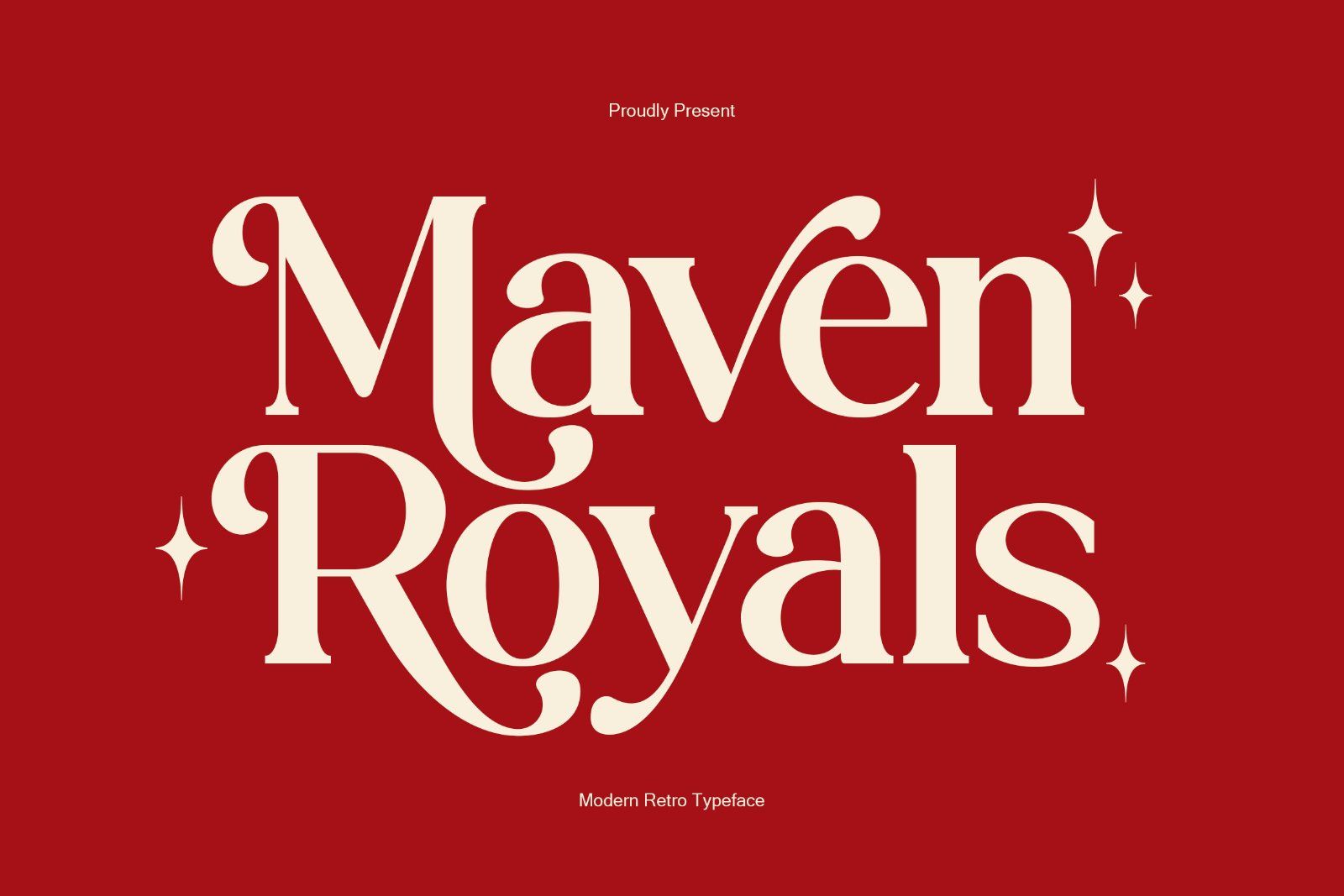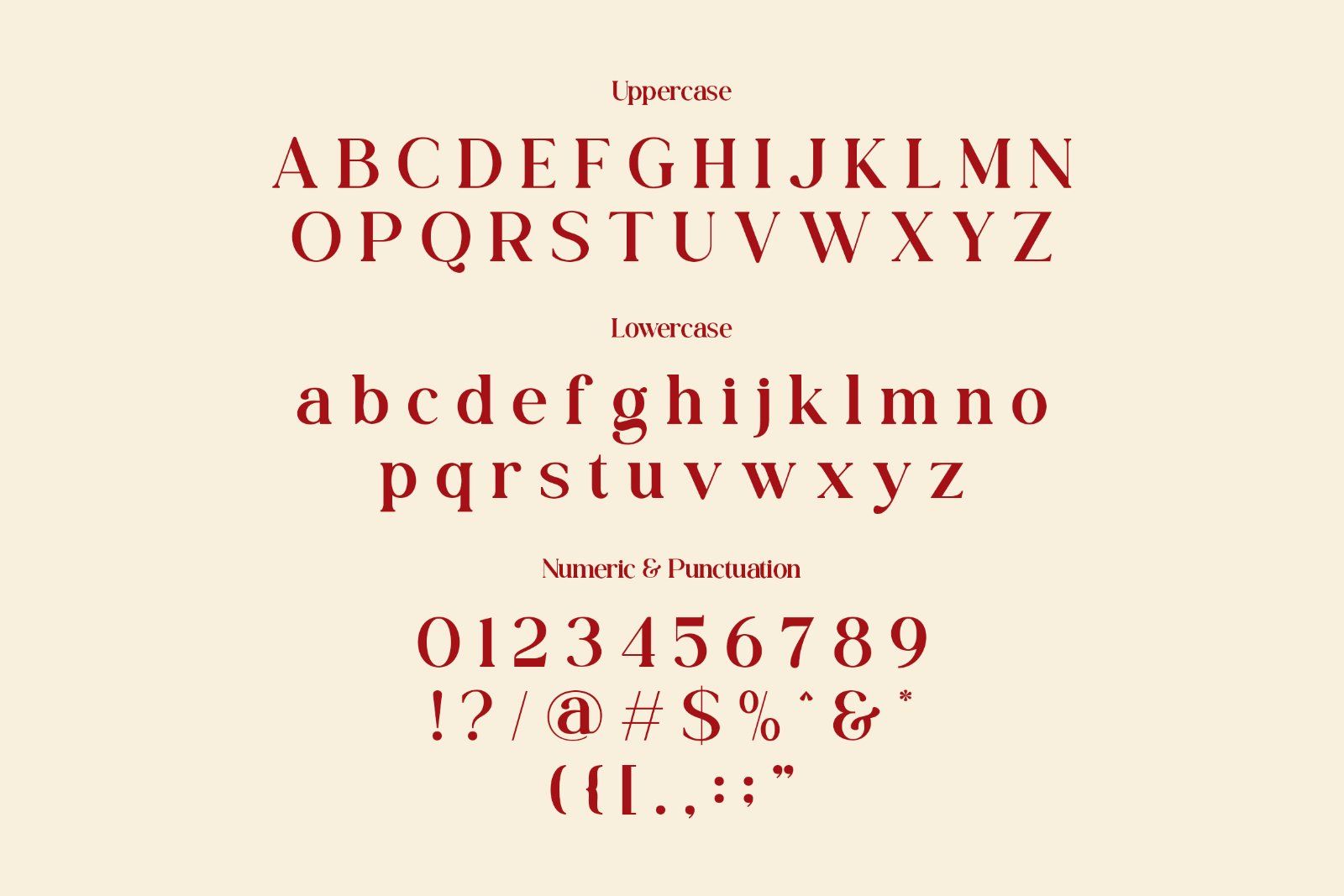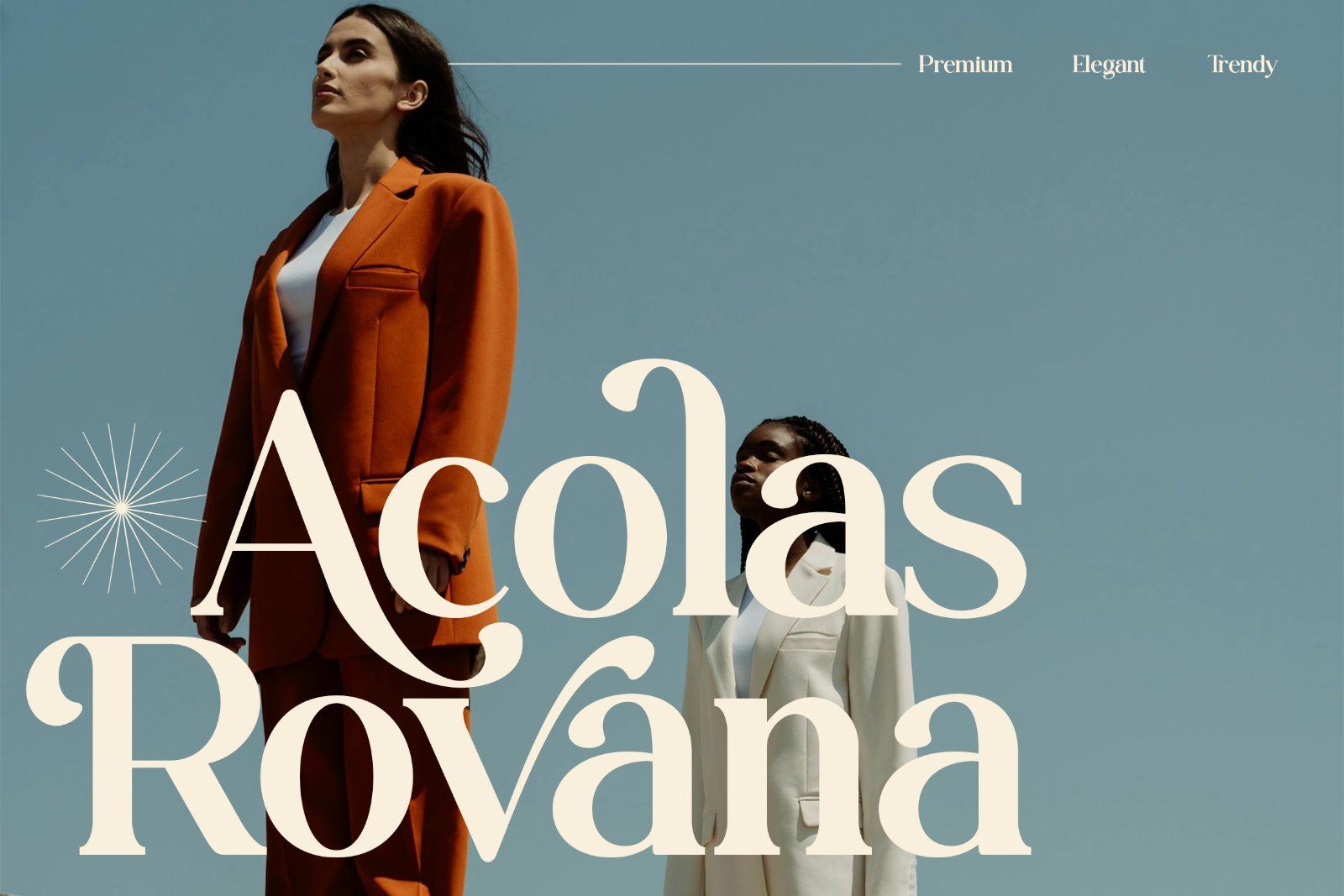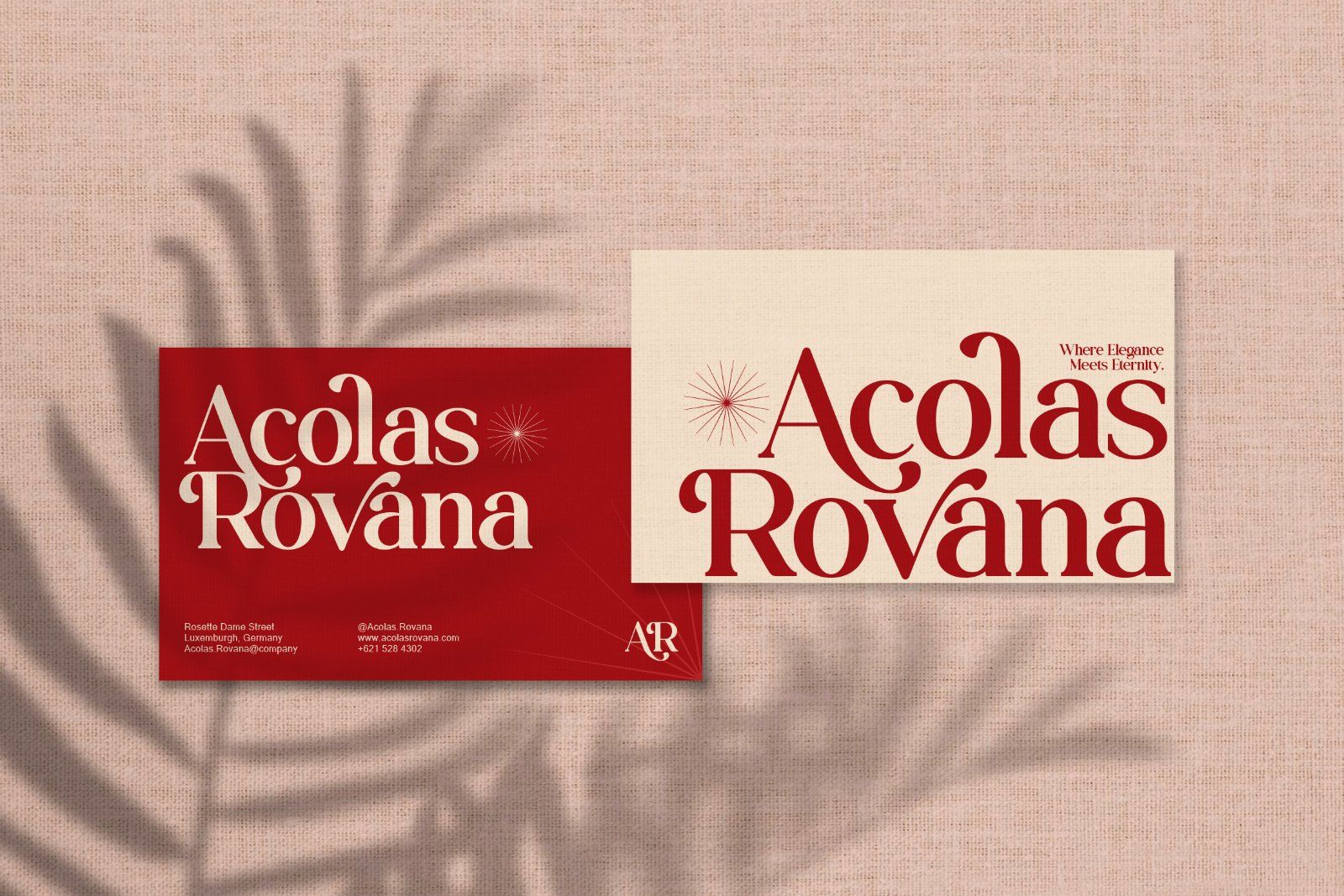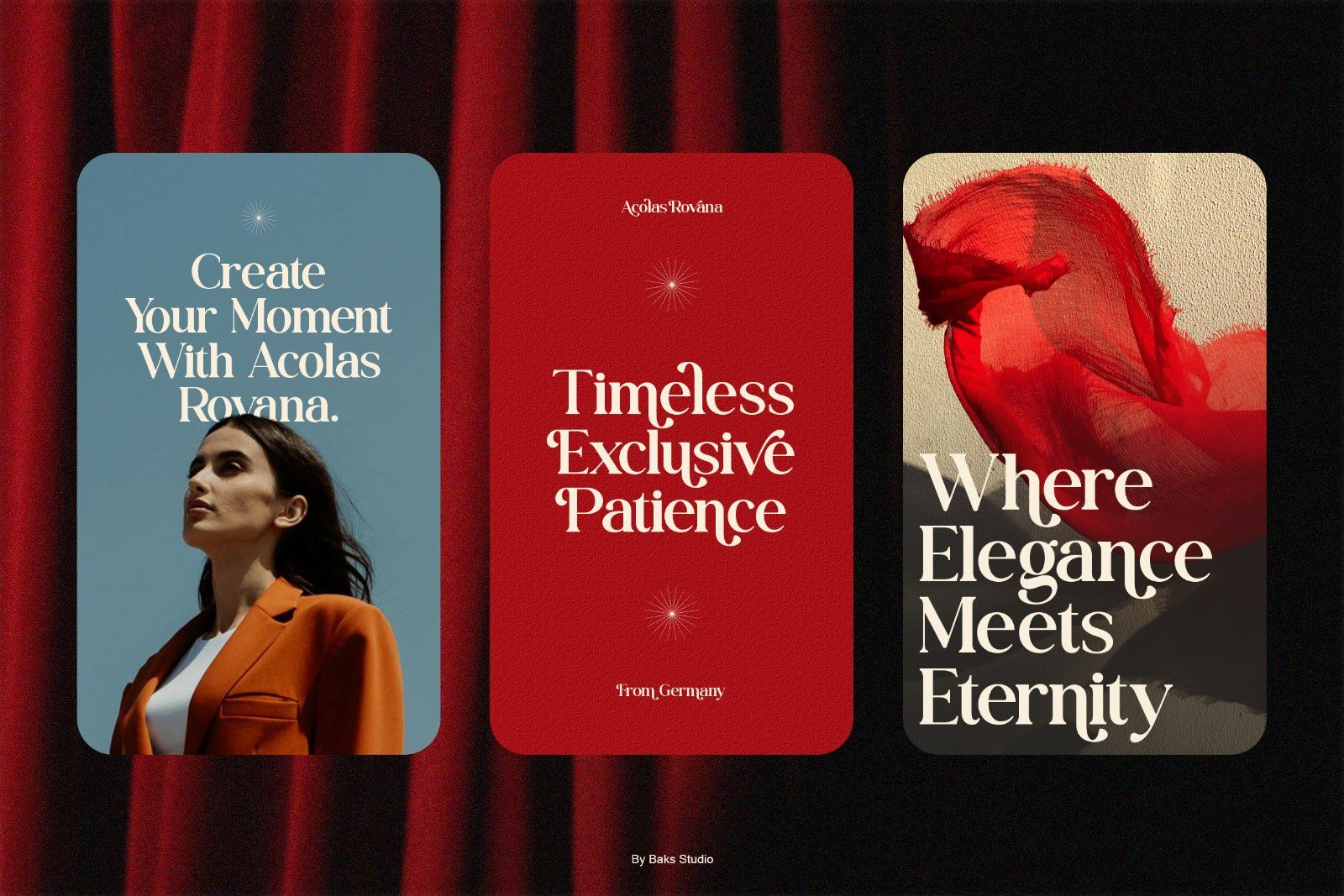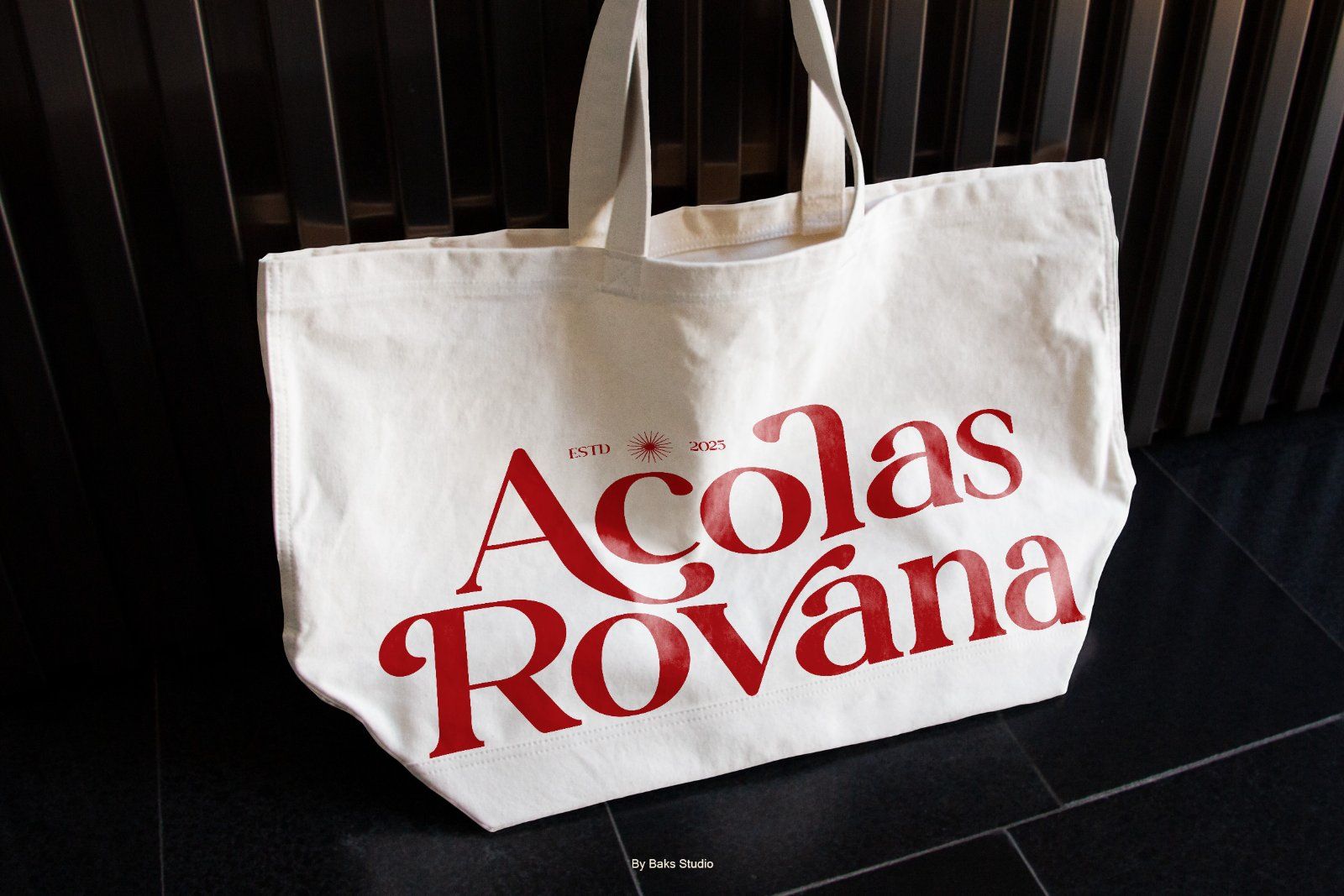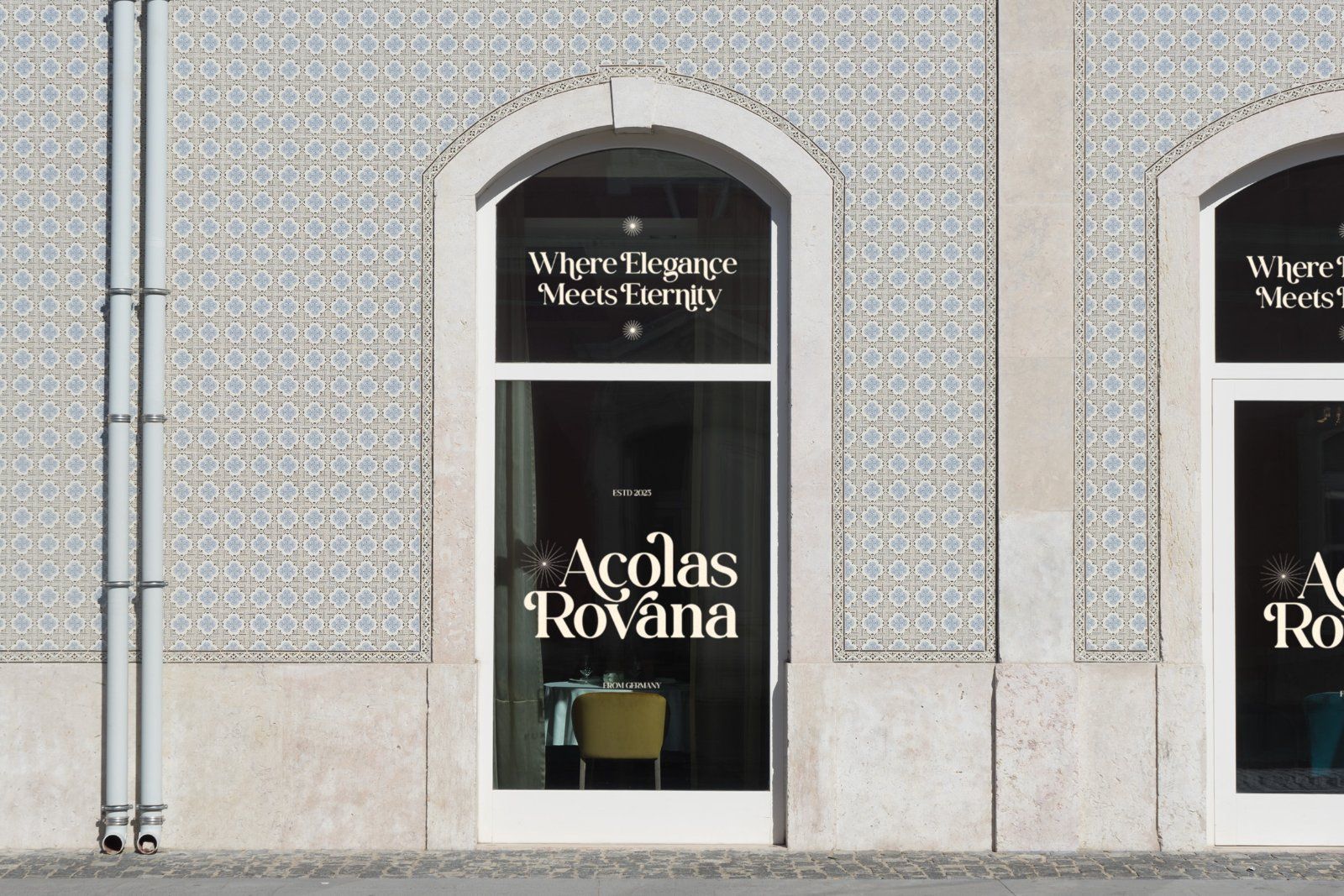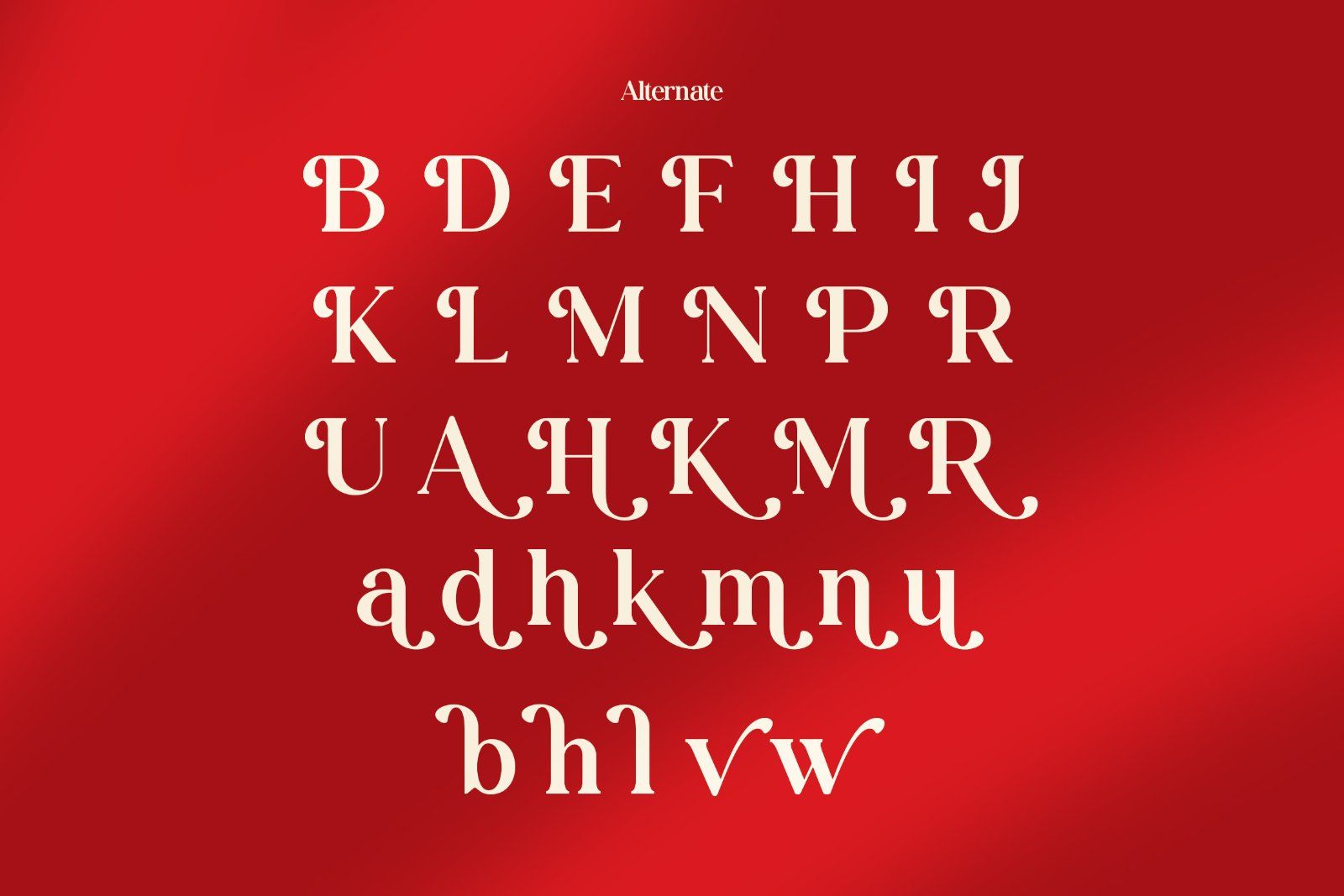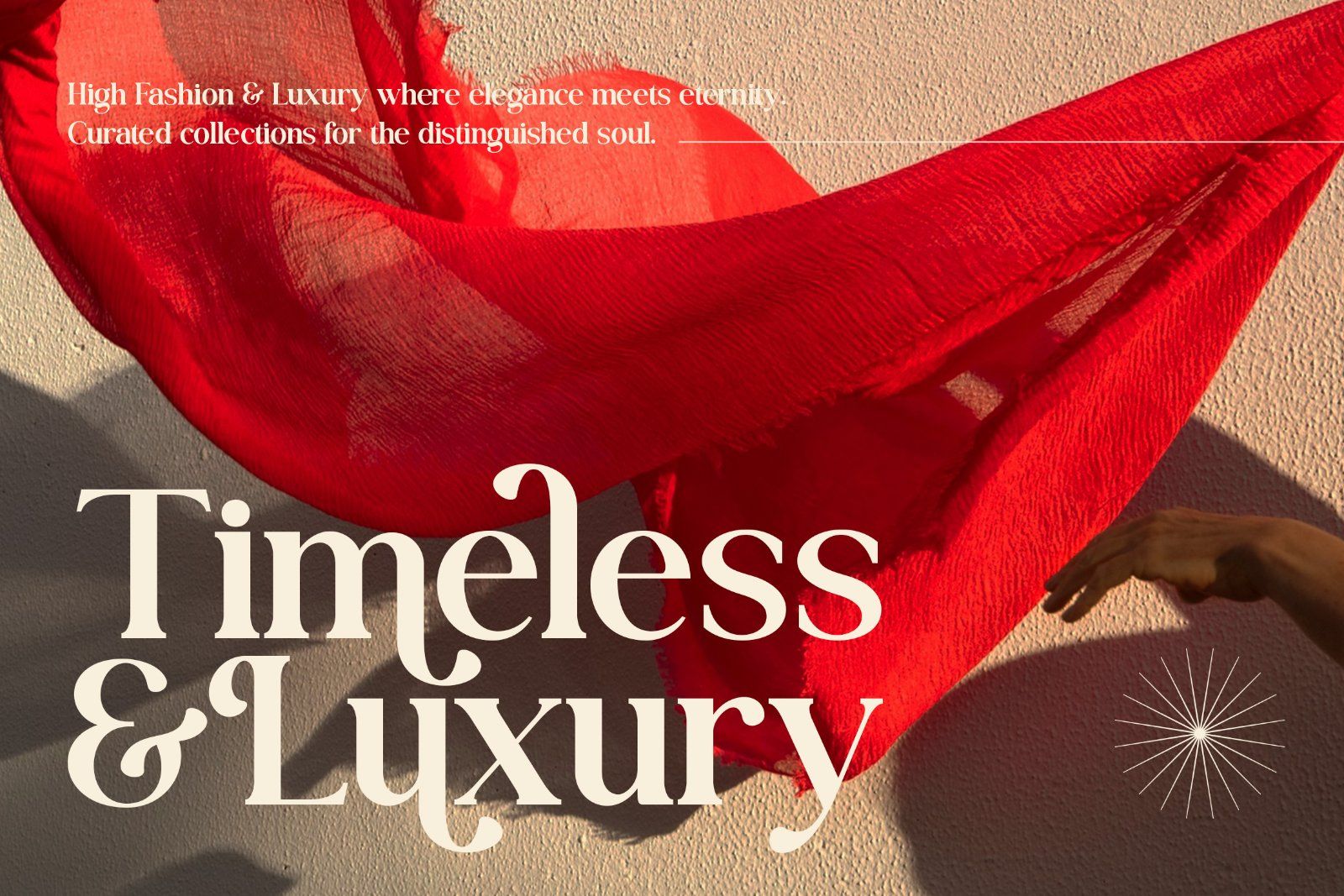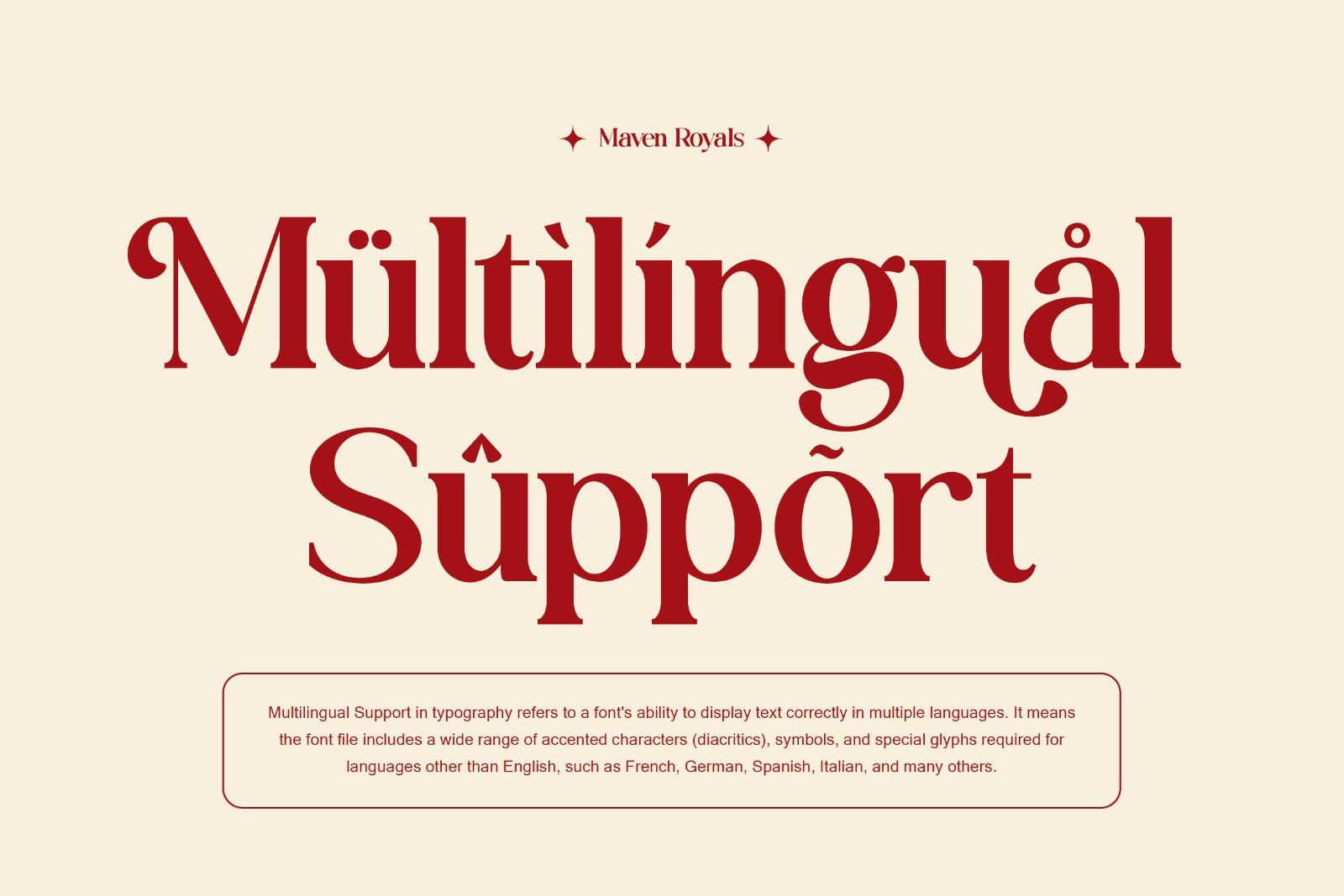
Maven Royals is a sophisticated modern retro typeface that blends vintage aesthetics with contemporary elegance through bold, high contrast strokes. This typeface is defined by its stylish serifs and refined swashes, making it a premier choice for high end branding and professional editorial layouts. Designed for versatility, it excels in creating elegant logos, luxury packaging, and impactful social media graphics that demand a timeless and professional finish.
Marven Royals available with:
• Uppercase
• Lowercase
• Number & Punctuation
• Stylistic Alternate